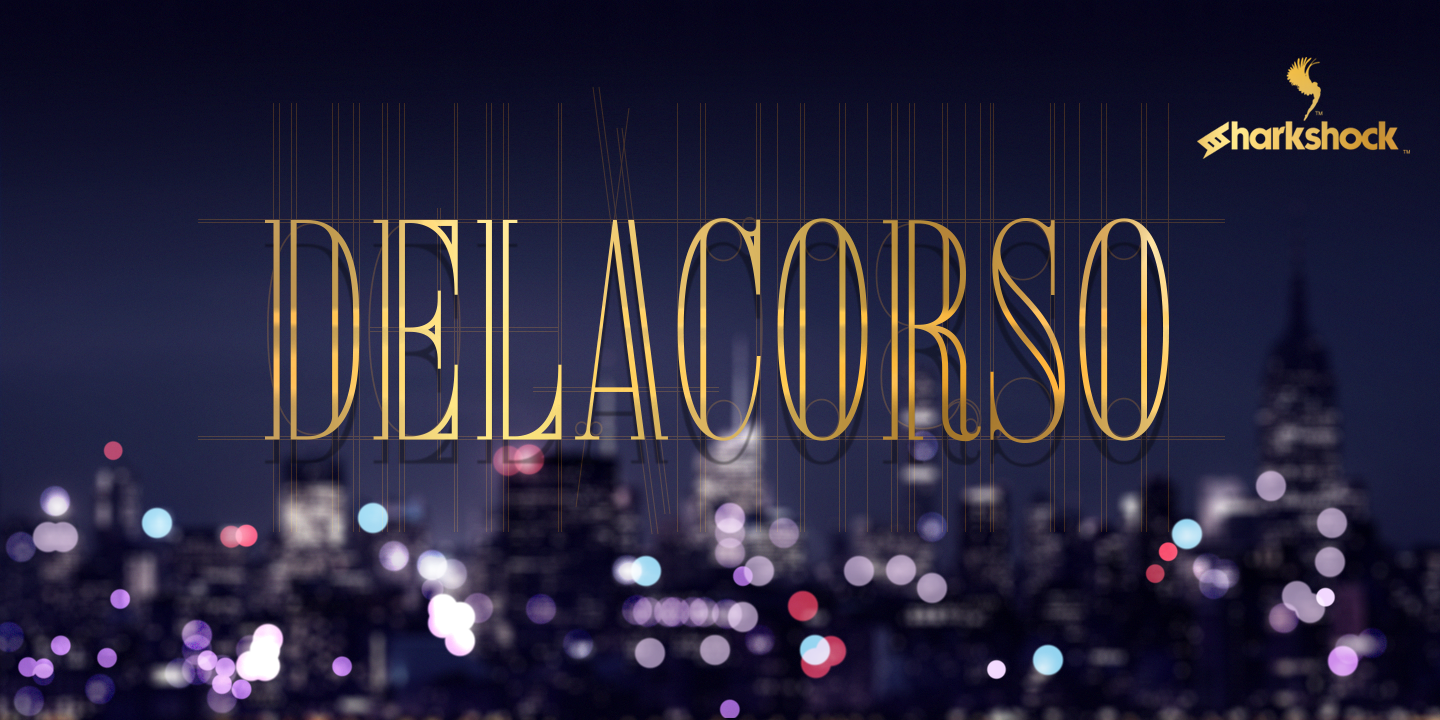
Delacorso Font
This Delacorso Font is perfect for Italian luxury branding, high-end fashion labels, sophisticated restaurant menus, premium wine packaging, elegant boutique signage, upscale hospitality materials, refined cultural events, artisan craftsmanship labels, prestigious academic institutions, and distinguished corporate communications.
What makes this Delacorso Font exciting is its Italian sophistication that captures the refined elegance and cultural distinction of European luxury traditions. The font features graceful letterforms with aristocratic proportions that convey sophisticated heritage, cultural refinement, and timeless elegance. Its distinguished character and European authenticity make it ideal for brands seeking to communicate luxury excellence, cultural sophistication, and Italian refinement in premium lifestyle markets.
The Delacorso Font family includes light, regular, medium, and bold weights with Italian alternates, aristocratic variants, and sophisticated flourishes. This comprehensive luxury font family provides designers with distinguished typographic tools to create elegant compositions while maintaining the refined character essential for luxury brands and cultural institution communications.
Luxury brands and cultural establishments consistently choose Delacorso Font Free Download for projects requiring authentic Italian sophistication and aristocratic appeal. This font's distinctive elegant character perfectly captures the cultural refinement and luxury heritage that resonate with audiences who appreciate Italian craftsmanship, European sophistication, and brands that embody distinguished excellence and cultural prestige.
The aristocratic construction of Delacorso Font showcases elegantly crafted letterforms with sophisticated proportions that ensure exceptional refinement across all luxury applications. Its distinguished appearance and Italian character create memorable impressions while maintaining the readability necessary for effective luxury communication and cultural materials.
Professional designers appreciate how Delacorso Font brings immediate Italian authenticity and sophisticated elegance to brand communications. The font's refined nature allows organizations to communicate luxury excellence and cultural distinction while maintaining the professional quality necessary for effective positioning in premium lifestyle and cultural heritage markets.
The timeless appeal of Delacorso Font makes it particularly effective for brands emphasizing Italian heritage, sophisticated luxury, and cultural refinement. Its elegant character resonates strongly with audiences who appreciate European craftsmanship, luxury traditions, and brands that represent the pinnacle of Italian sophistication and cultural excellence.
Whether developing branding for luxury Italian restaurants or creating materials for prestigious cultural institutions, Delacorso Font Free Download provides the sophisticated typographic foundation that distinguished brands need to communicate their Italian authenticity, luxury refinement, and the elegant excellence that defines European sophistication and cultural heritage achievement.